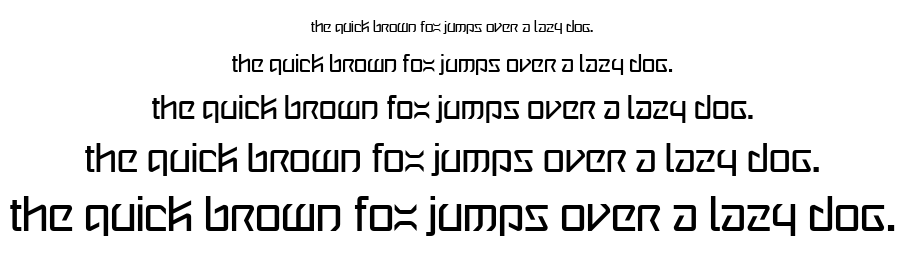
Wintermute is an exploration of that very special technological feeling that you non-nerds will never understand. Don’t even try, you’ll only embarrass yourselves.